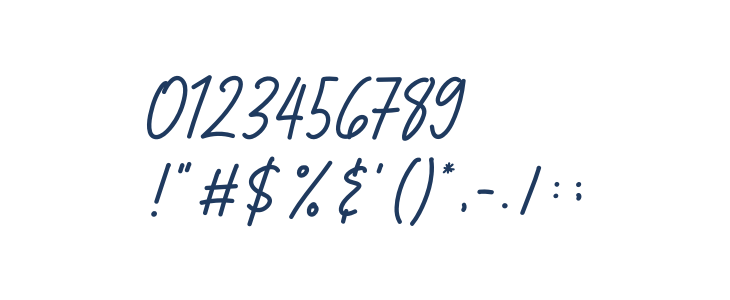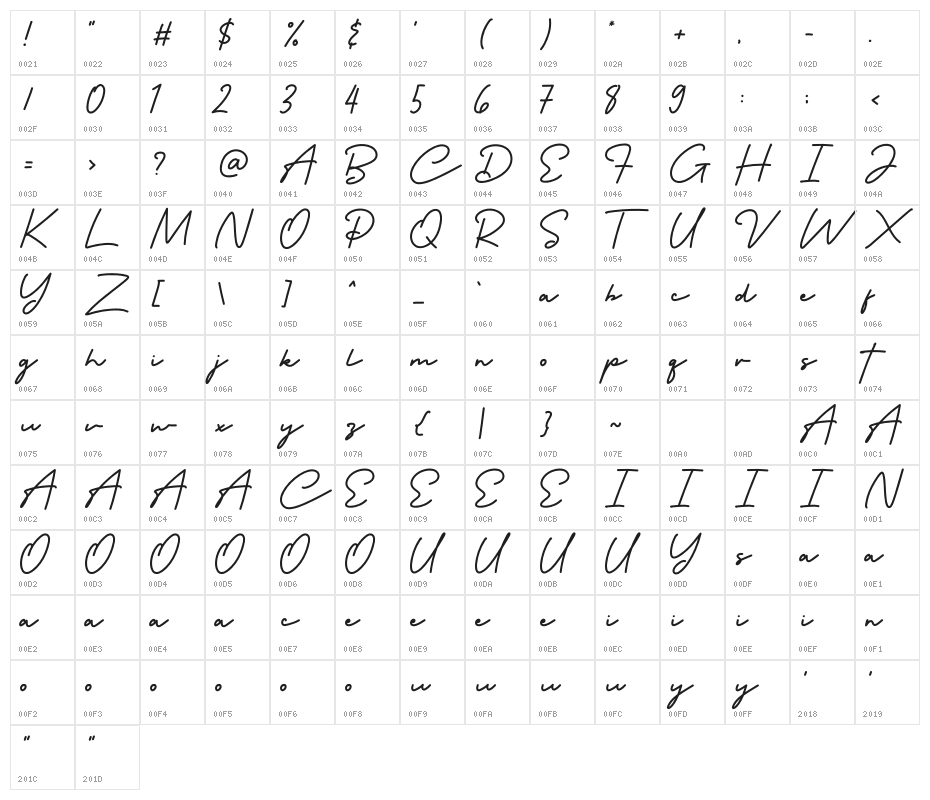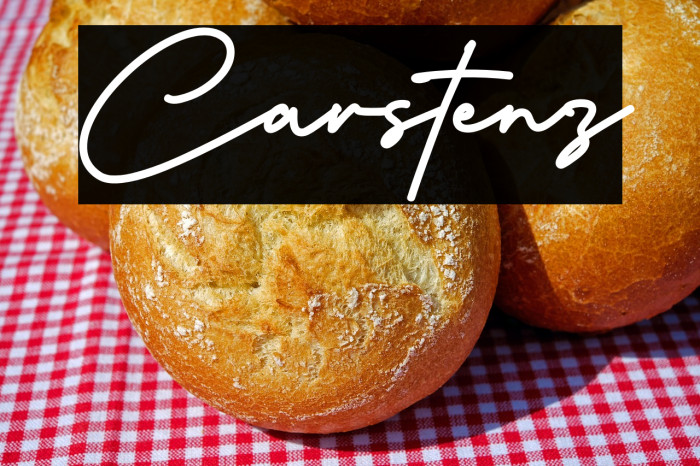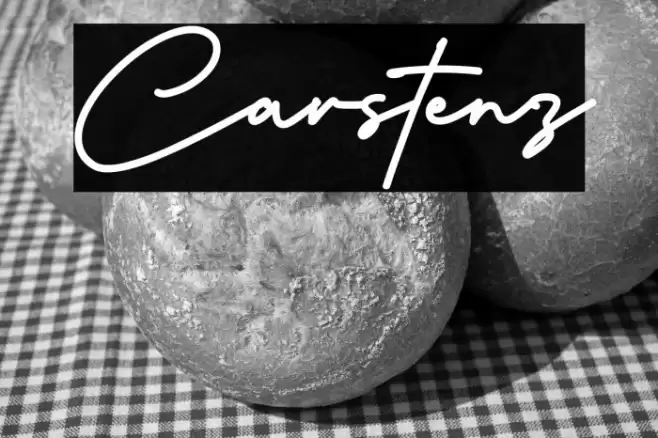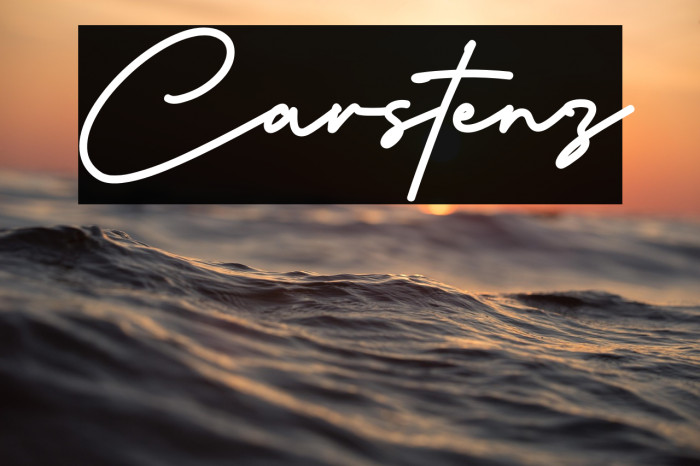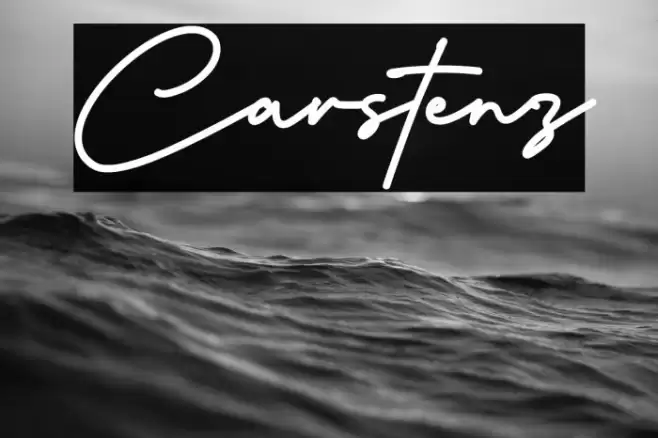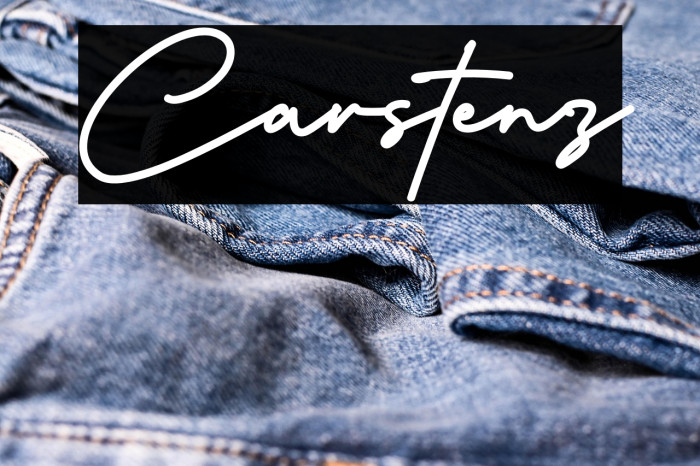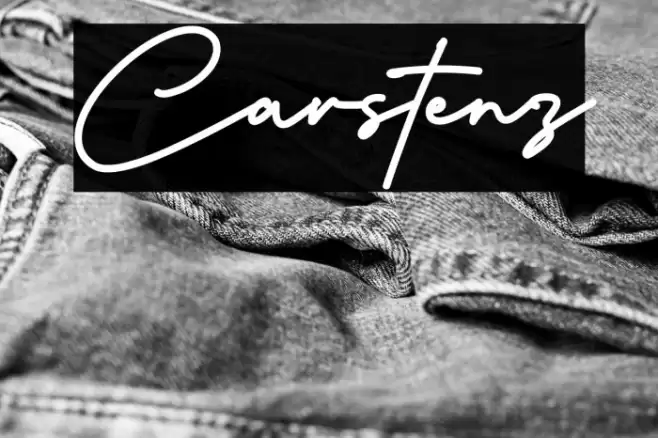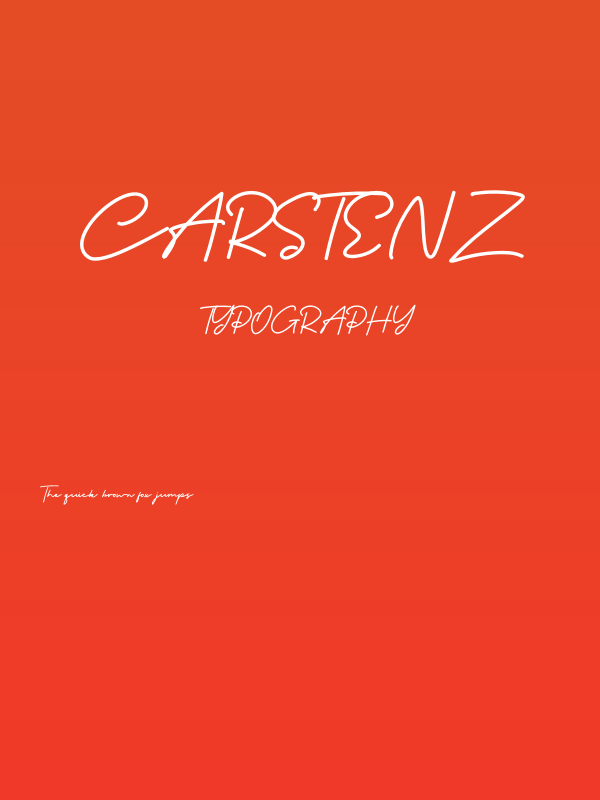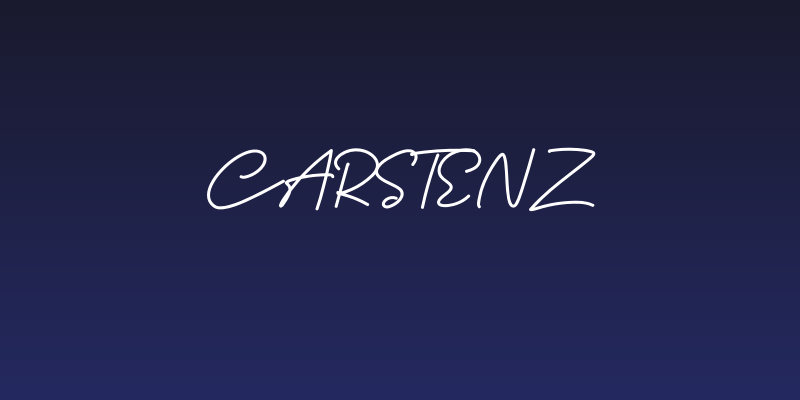
Carstenz Font
Carstenz Description
This font features a dynamic and fluid script style, characterized by its elegant and flowing cursive letters. The uppercase letters are slightly more structured, maintaining a consistent slant that adds to the overall sophistication. The lowercase letters are more freeform, with smooth, connected strokes that mimic natural handwriting. The numerals are clear and legible, maintaining the same cursive style, which adds a touch of personality. Special characters are well-integrated, ensuring versatility in various design contexts. The overall appearance is both stylish and approachable, making it suitable for a wide range of applications.